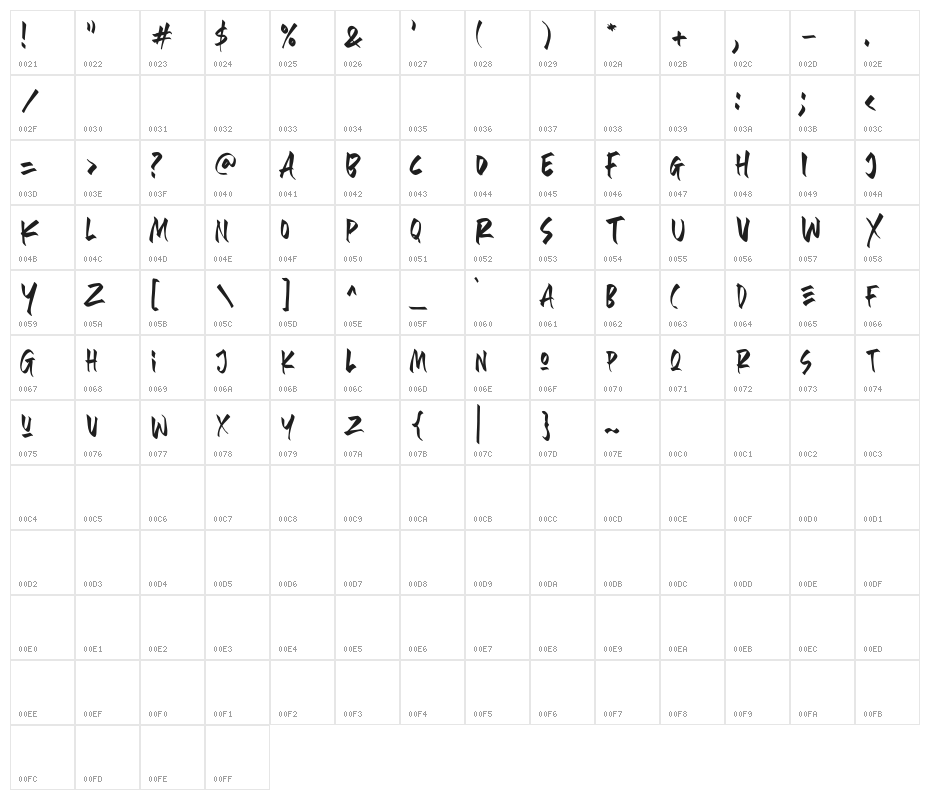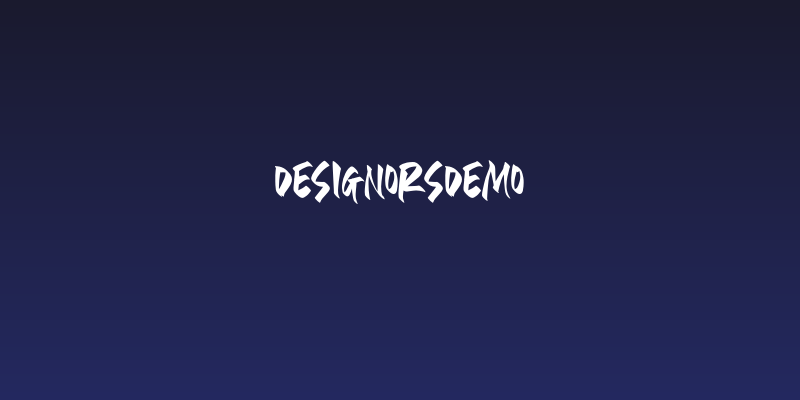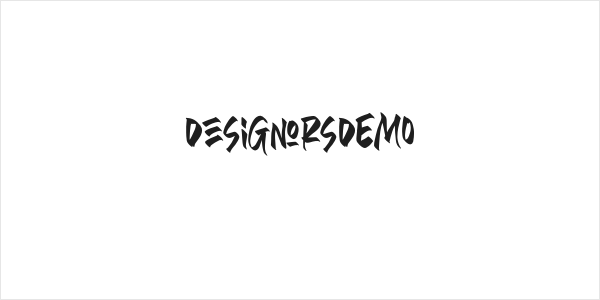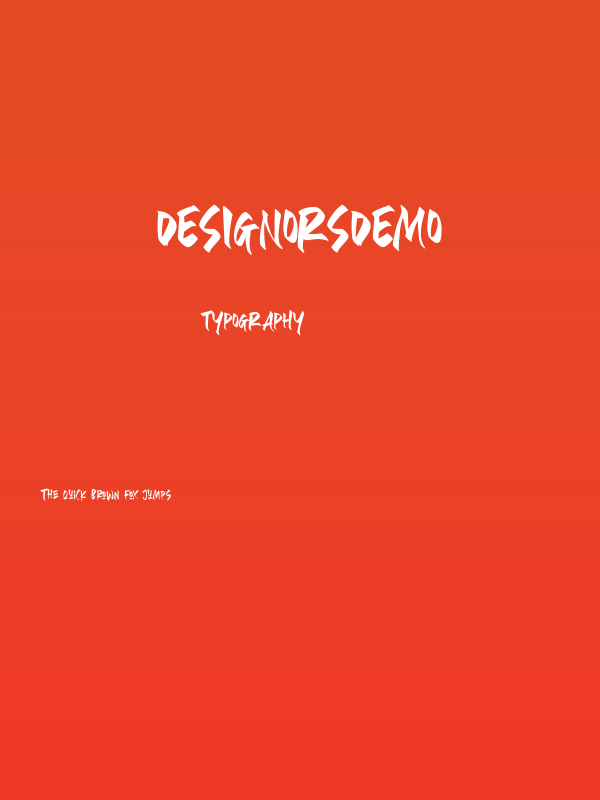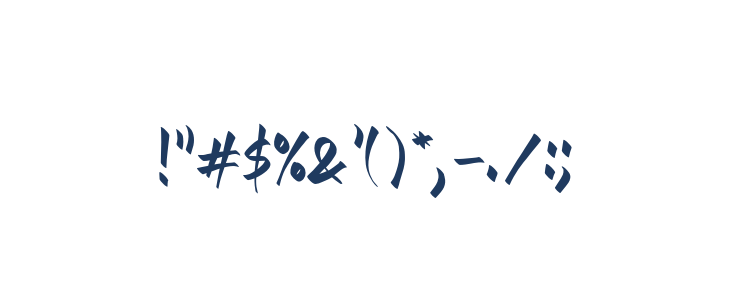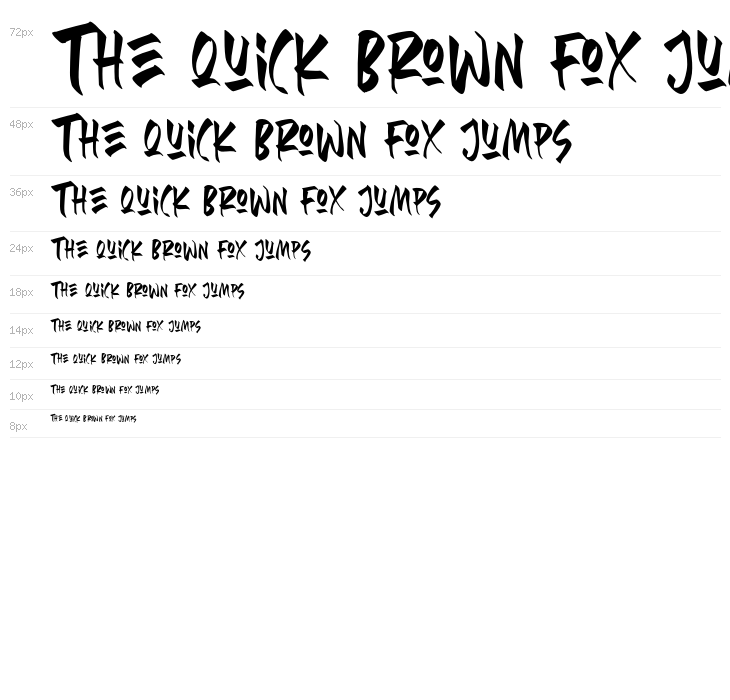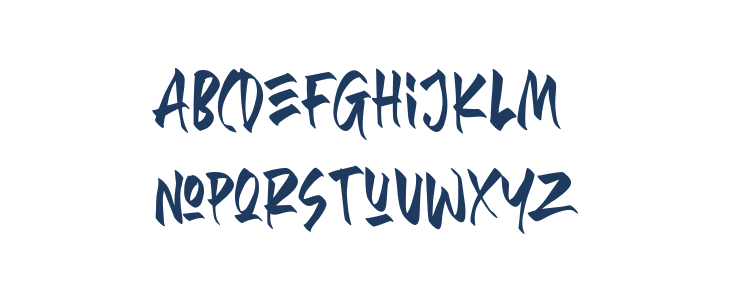
DesignorsDEMO Font
DesignorsDEMO Description
This font features a bold, expressive style with sharp, angular strokes that convey a sense of energy and dynamism. The uppercase letters are particularly striking, with exaggerated curves and pointed edges that create a sense of movement. The lowercase letters maintain this energetic feel, though they are slightly more restrained. The numbers and special characters are consistent with this bold aesthetic, making them stand out prominently. Overall, the font has a hand-drawn, graffiti-like appearance that is both modern and edgy.
| Overall Style | Modern, Edgy |
| Proposed Projects | Ideal for street art designs, music album covers, edgy branding projects, and dynamic poster designs. |